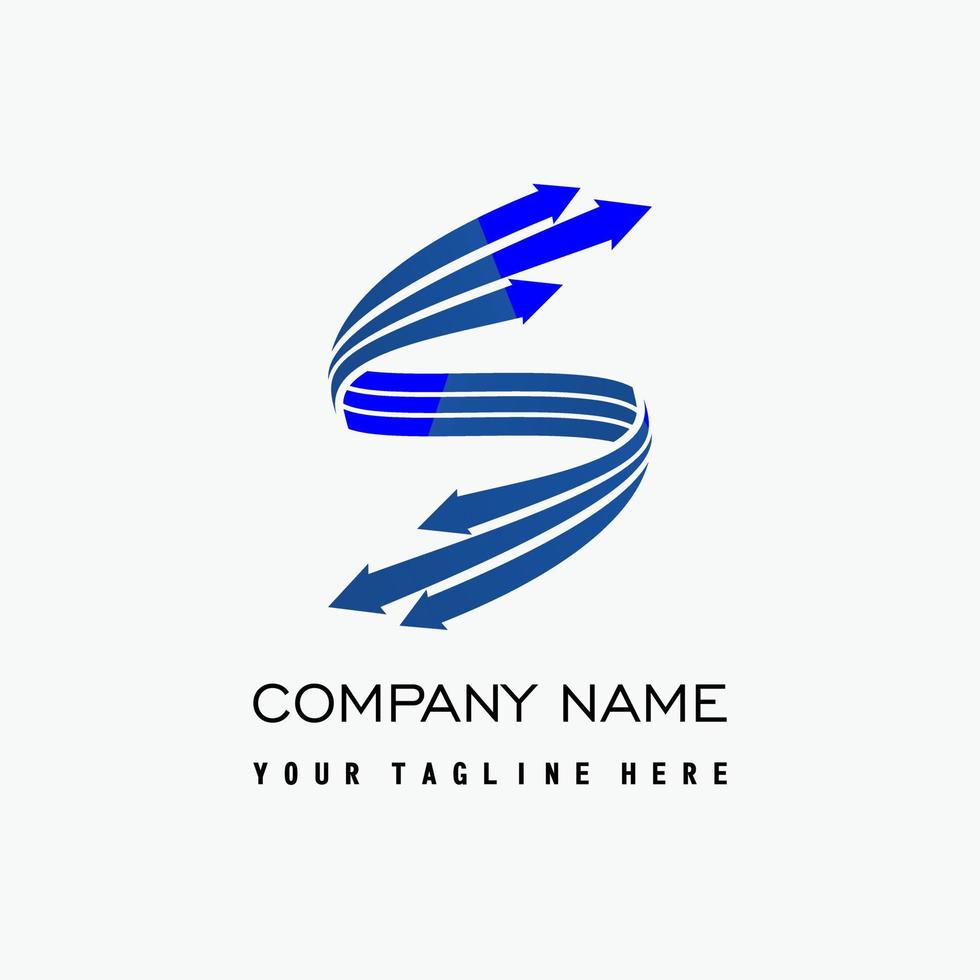
letter word S font in 3 arrow lines and flip position Image graphic icon logo design abstract concept vector stock. Can be used as a symbol related to monogram or initial. Pro Vector